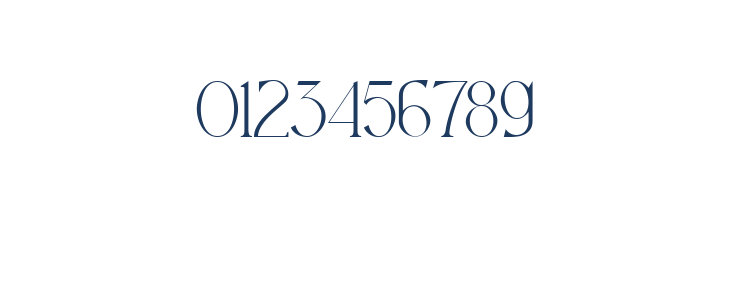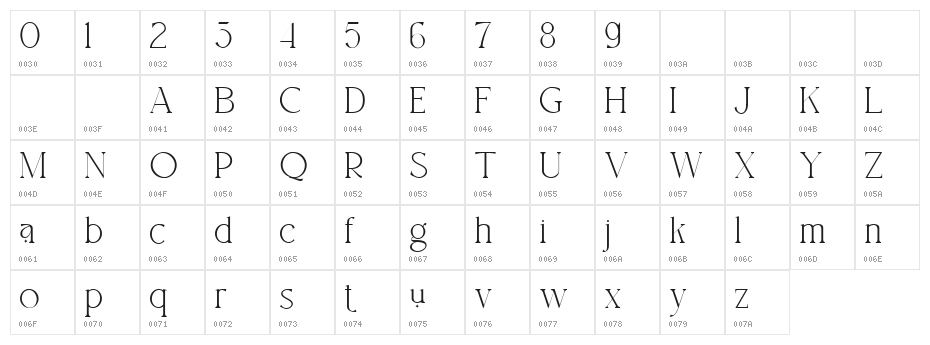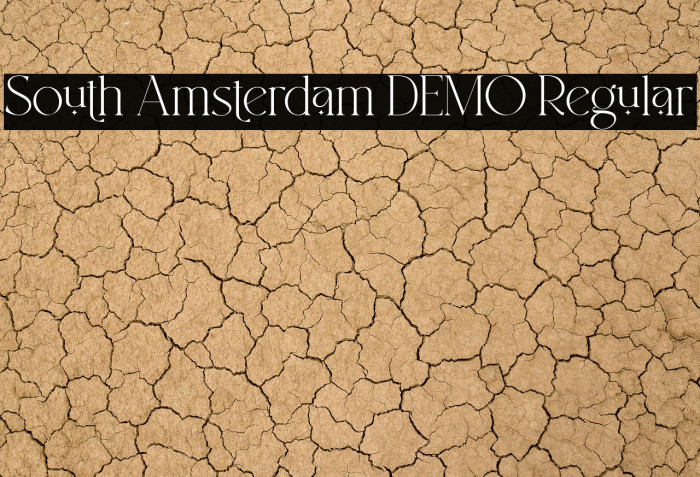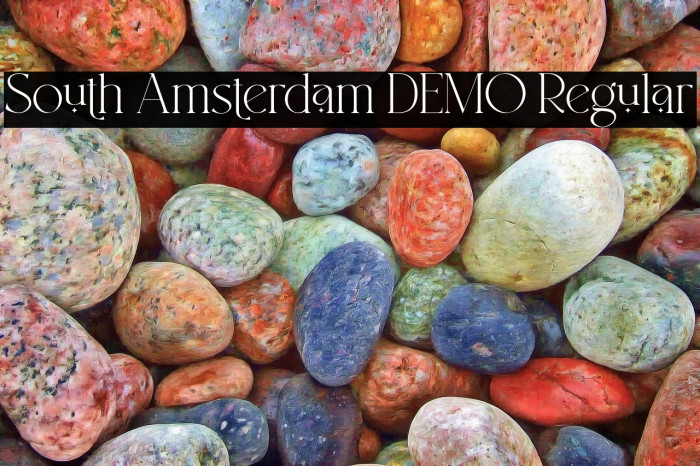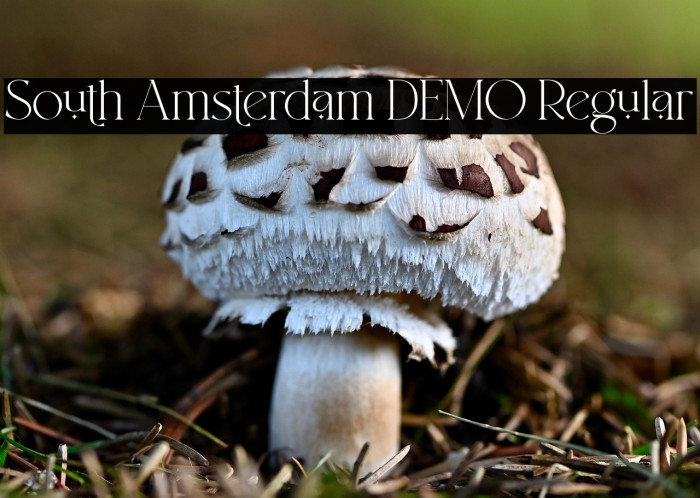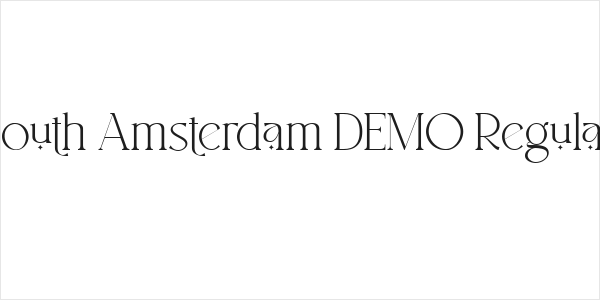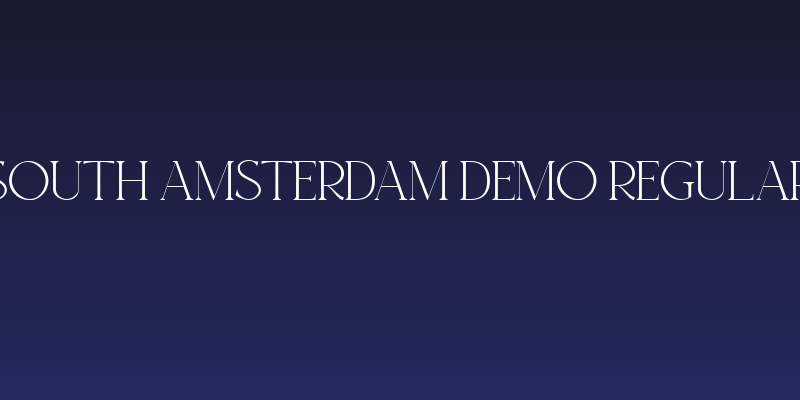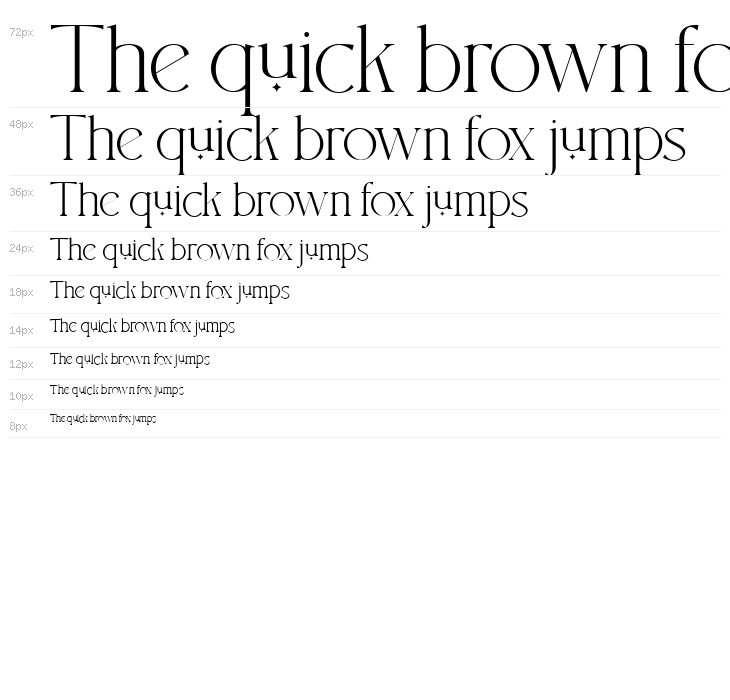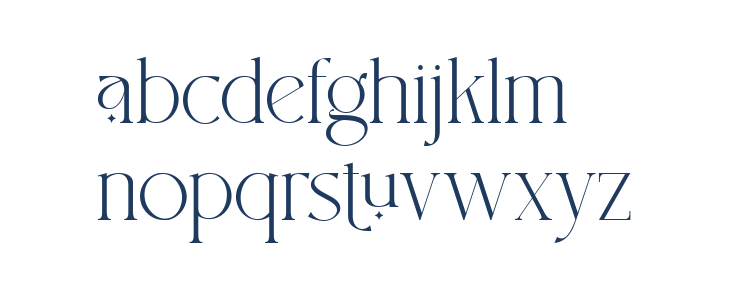
South Amsterdam DEMO Regular Font
South Amsterdam DEMO Regular Description
This font features a sophisticated and elegant design, characterized by its thin, elongated serifs and high contrast between thick and thin strokes. The uppercase letters exhibit a refined and classic style, with sharp, pointed serifs that add a touch of formality. The lowercase letters maintain a consistent style, with smooth curves and a graceful appearance. The numerals are stylish and align well with the overall aesthetic, providing a cohesive look. The special characters are designed to complement the main alphabet, ensuring versatility in various design applications.
Overall StyleClassic
Proposed ProjectsIdeal for luxury branding, editorial design, wedding invitations, and high-end product packaging.